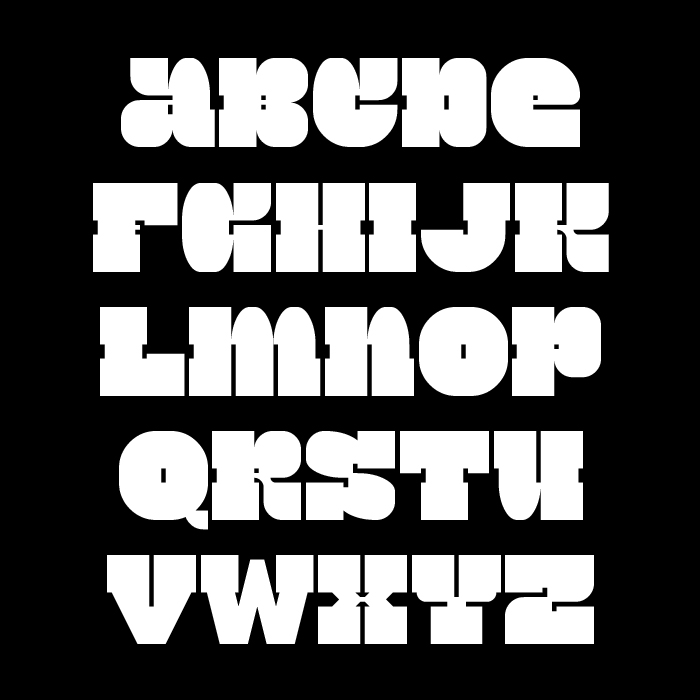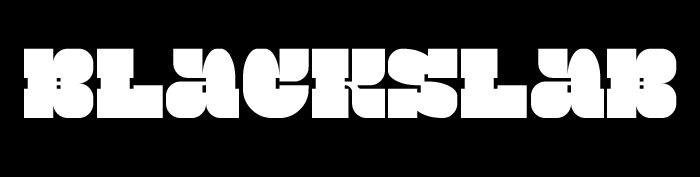
10/10 aesthetics
I bend my knee to you once more and with immense pleasure, compañero!
wow, great design, almost gives off a bit of a western vibe 10/10
Heavy slab serif with carefully chosen x-height. The tiny counters - we are both very much fond of - make the letters super adorable. 10/10